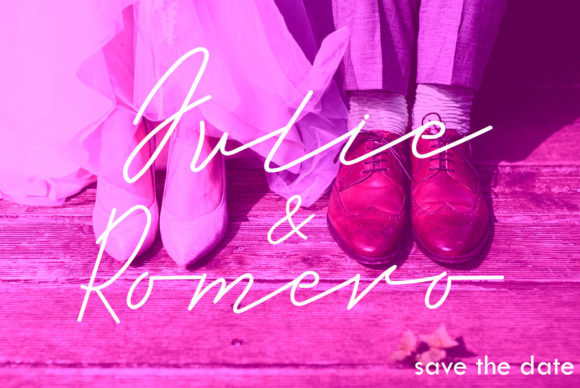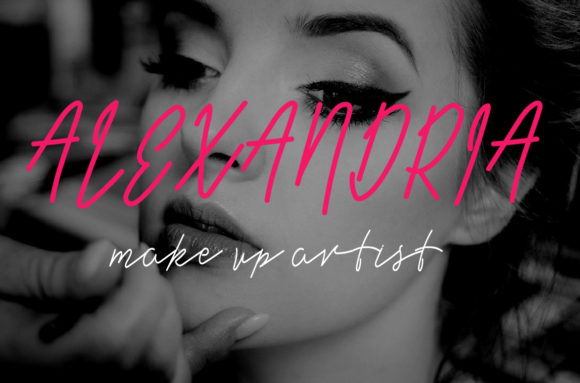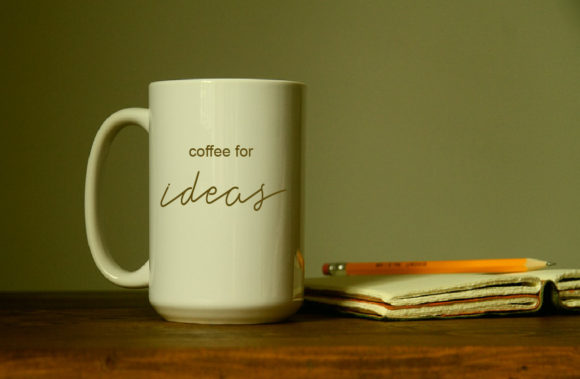
Introduction to Long Liner Font
As a designer, there’s nothing quite like the thrill of seeing a creative project come together. It’s that moment when all the pieces align, and your vision starts to take shape. For me, it’s often when I stumble upon a font that elevates the entire design. And that’s exactly what happened when I discovered the Long Liner Font – an elegant monoline script font that exudes luxury and sophistication.
With its natural writing style and high-quality aesthetic, the Long Liner Font is the perfect design resource for any project that requires a touch of elegance. Whether you’re creating a logo, watermark, signature, or album cover, this font is sure to impress. And the best part? It’s available for free download, making it an invaluable addition to any designer’s toolkit.
As a valuable resource for designers, the Long Liner Font offers a transparent background, allowing for seamless integration into any design. Its versatility makes it a must-have for creatives working on a wide range of projects, from business cards and magazines to clothing and posters.
Key Features of Long Liner Font
- High-quality design resource ideal for creative projects requiring a unique, elegant touch.
- Designed with versatility in mind, making it suitable for use in a variety of creative projects, from branding and advertising to editorial and publishing.
- Long Liner Font’s unique characteristics and high-quality design make it an excellent choice for designers seeking a distinctive and professional look.
Honest Review: Long Liner Font
I recently stumbled upon the Long Liner Font, and I’m excited to share my thoughts with you. As a designer, I’m always on the lookout for high-quality design resources to enhance my creative projects.
Here’s what works well: ✨ The Long Liner Font has a unique, elegant design that makes it perfect for headings and titles. Its clean lines and minimalistic approach make it versatile and easy to use in various design contexts. Additionally, the font is available for free download, which is a huge plus for designers on a budget.
However, I did encounter a few limitations: ⚠️ The font doesn’t support transparent backgrounds, which can be a drawback for designers who want to create designs with a seamless background. Additionally, the font library is relatively small, which may limit its use in complex design projects.
Overall, I’m impressed with the Long Liner Font, and I would recommend it to designers who are looking for a high-quality, free font for their creative projects. While it may have some limitations, its unique design and free availability make it a valuable design resource.
- Unique, elegant design
- Clean lines and minimalistic approach
- Supports a wide range of design contexts
How to Use Long Liner Font
The Long Liner Font is a high-quality design resource ideal for creative projects requiring a unique, elegant touch. Its transparent background makes it versatile for various applications.
Tips for Getting the Most Out of Long Liner Font
Use the Long Liner Font in conjunction with other high-quality design elements to create a cohesive look. Experiment with different font combinations to add depth to your project.
The Long Liner Font is suitable for a variety of projects, including branding materials, advertisements, and editorial content. Its elegant design makes it an excellent choice for luxury or high-end brands.